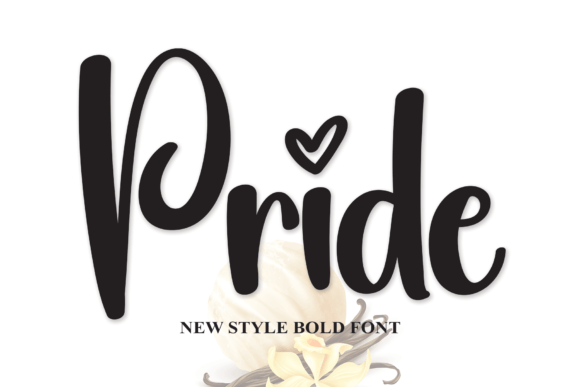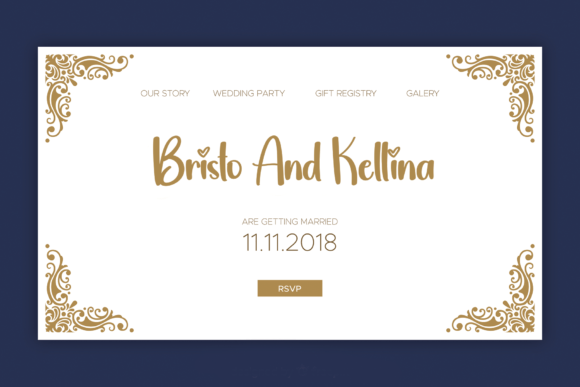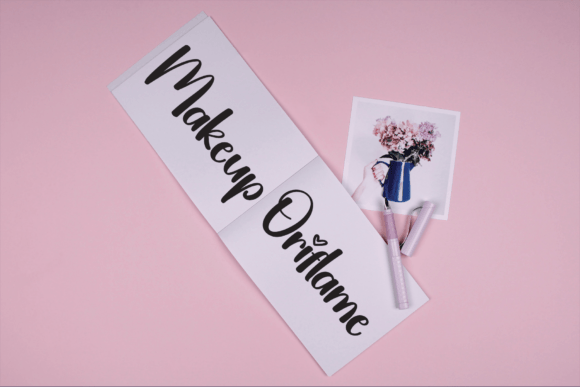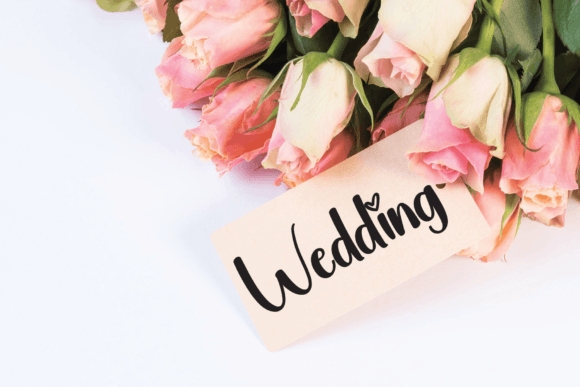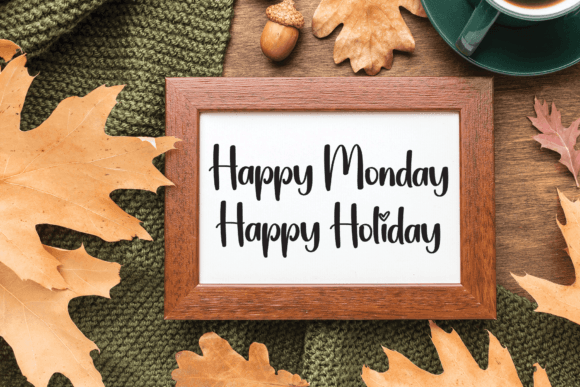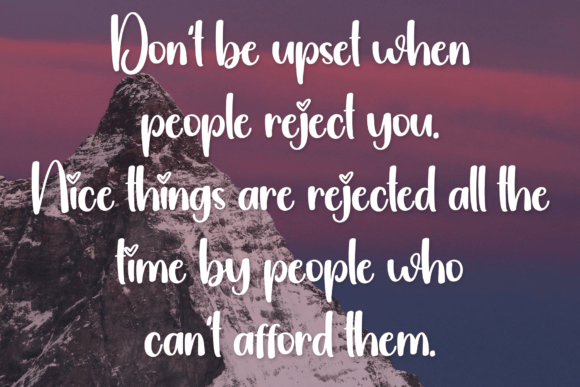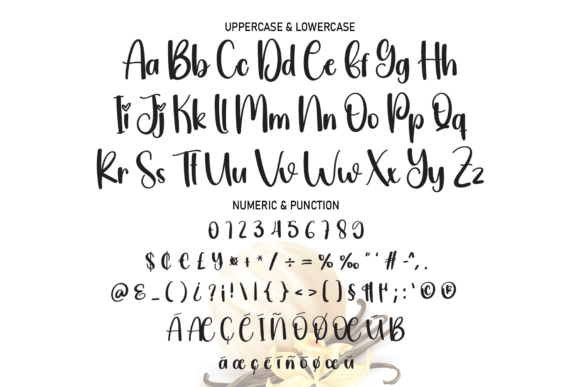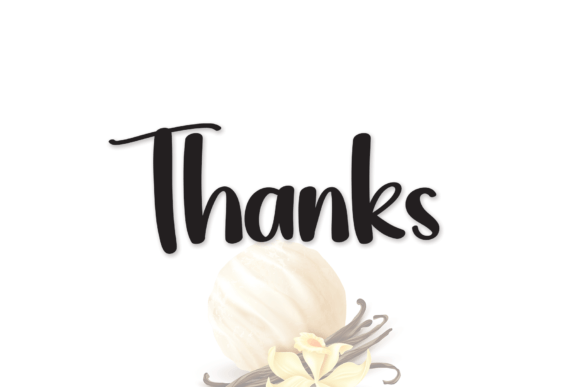
Pride Font
About Pride Font
Pride is a font that radiates elegance and delicacy, showcasing a handwritten style adorned with sweet and intricate swashes. This font takes the concept of romance to a heightened level by incorporating hearts as dots, charmingly placed on characters like “i” and “j”.
The refined and dainty qualities of Pride make it a stand-out choice for projects that require a touch of sophistication and charm. The delicate swashes add a level of intricacy, making this font particularly well-suited for creative endeavors that seek to convey a sense of grace and romance.
What sets Pride apart is its whimsical use of hearts as dots, introducing a unique romantic element to the characters. This subtle yet delightful detail contributes an extra layer of sweetness, making the font especially fitting for projects with a romantic or affectionate theme.
Whether you’re designing wedding invitations, crafting love notes, or adding a romantic touch to any creative endeavor, Pride becomes a valuable asset. Its handwritten elegance adds a personal and intimate feel, while the hearts as dots infuse an extra layer of visual appeal.
Pride’s versatility extends to various applications, including branding, packaging, greeting cards, and more. The font effortlessly adapts, bringing an air of delicacy and romance to every project it graces.
In essence, Pride is not just a font; it’s a romantic expression in typography. Let it be the brushstroke that adds an elegant and dainty touch to your designs, turning every word into a visual love letter. Whether you’re infusing romance into your branding or creating heartfelt messages, Pride is the font that transforms your words into a work of art.